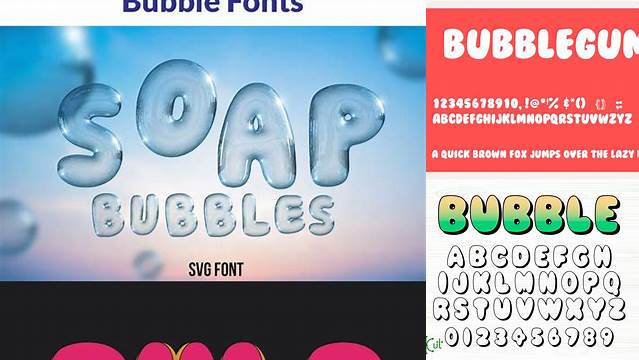
Free Bubble Fonts: Add Fun Typography To Your Designs
Are you looking to inject some fun and whimsy into your designs? Look no further than bubble fonts! These playful typefaces, characterized by their rounded, inflated shapes, are perfect for a wide range of projects, from children's books and birthday invitations to eye-catching logos and social media graphics. In this article, we'll dive deep into the world of bubble fonts, exploring their history, characteristics, and best uses. We'll also guide you on where to find amazing bubble fonts for free, so you can start creating your own bubbly masterpieces today!
What Exactly is a Bubble Font?
When we talk about bubble fonts, we're referring to a style of typeface that mimics the appearance of bubbles – think round, soft, and inflated. This unique aesthetic instantly adds a lighthearted and friendly touch to any design. The rounded edges and curves create a sense of playfulness, making bubble fonts particularly suitable for projects targeting children or aiming for a fun, informal vibe. These fonts often evoke feelings of nostalgia, reminiscent of childhood cartoons and comic books, adding a touch of retro charm to your designs. But don't let the playful nature fool you; bubble fonts can also be surprisingly versatile.
The defining characteristics of bubble fonts include:
- Rounded Shapes: The most prominent feature is the rounded, almost circular forms of the letters. Sharp edges and corners are softened, creating a smooth and approachable look.
- Inflated Appearance: Bubble fonts often have a three-dimensional quality, appearing as if the letters are inflated with air. This adds depth and visual interest.
- Bold Strokes: Many bubble fonts feature thick, bold strokes, which enhance their impact and legibility, especially at larger sizes. The boldness contributes to the overall playful and attention-grabbing nature of the font.
- Friendly and Approachable: The soft curves and rounded shapes create a friendly and approachable feel, making these fonts ideal for designs that aim to connect with the audience on a personal level. They exude warmth and create a welcoming atmosphere.
- Versatile Applications: While often associated with children's projects, bubble fonts can also be used in various other contexts, such as branding, advertising, and social media graphics, depending on the specific style and design.
Think about the last time you saw a logo for a children's toy store or the title of an animated movie. Chances are, a bubble font was used to immediately convey a sense of fun and playfulness. This is the magic of bubble fonts – their ability to instantly communicate a specific mood and target audience. But before you jump in and start using any bubble font you find, it's crucial to understand their nuances and how to use them effectively.
The History and Evolution of Bubble Fonts
While it's tricky to pinpoint the exact origin of bubble fonts, their roots can be traced back to the mid-20th century, a time when playful and informal typography began to gain traction. The rise of pop art and cartoon culture heavily influenced graphic design, leading to the exploration of more whimsical and expressive typefaces. The 1960s and 70s saw a surge in the popularity of rounded, bold fonts, often used in advertising and packaging to grab attention and convey a sense of fun. These early iterations of bubble fonts were often hand-drawn or created using phototype setting techniques.
Here's a glimpse into the historical milestones and influences:
- Mid-20th Century: The emergence of informal typography, influenced by pop art and cartoon culture.
- 1960s-70s: Popularity of rounded, bold fonts in advertising and packaging.
- Early Computer Era: Digitization of typefaces, allowing for easier creation and use of bubble fonts.
- Present Day: Wide availability of free and premium bubble fonts, with diverse styles and applications.
With the advent of computers and digital typography, the creation and use of bubble fonts became much easier. Designers could experiment with different styles and variations, leading to a proliferation of bubble fonts in the digital age. Today, you can find countless bubble fonts online, ranging from classic, retro styles to modern and quirky interpretations. The evolution of bubble fonts reflects the changing trends in design and technology, but their core appeal – their playful and approachable nature – remains timeless.
Understanding the history of bubble fonts can give you a greater appreciation for their design and how they've been used throughout the years. It also helps you make informed decisions about when and how to use them in your own projects. Think about how the context of a project influences the font choice. A historical project might benefit from a vintage-inspired bubble font, while a modern project might call for a cleaner, more contemporary style.
Where to Use Bubble Fonts: Best Applications
Bubble fonts are incredibly versatile, but they truly shine in specific contexts. Their playful and friendly nature makes them a natural fit for projects targeting children, but their applications extend far beyond that. Understanding the strengths of bubble fonts will help you choose the right typeface for your design and maximize its impact. Let's explore some of the best applications for bubble fonts:
So, go ahead and embrace the playful side of typography! Experiment with different bubble font styles, colors, and applications, and discover the unique magic they can bring to your designs. With a little creativity and attention to detail, you can create bubbly and delightful masterpieces that capture the imagination and leave a lasting impression.